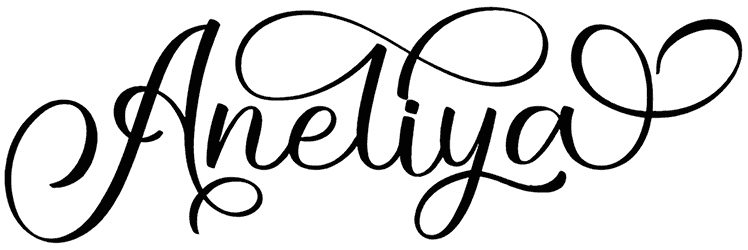
Lovemotion Font
Lovemotion is the name of this beautiful script font. Logos, blog headlines, branding, poster designs, and many other things can be done with this old-school font.
Three layered fonts.